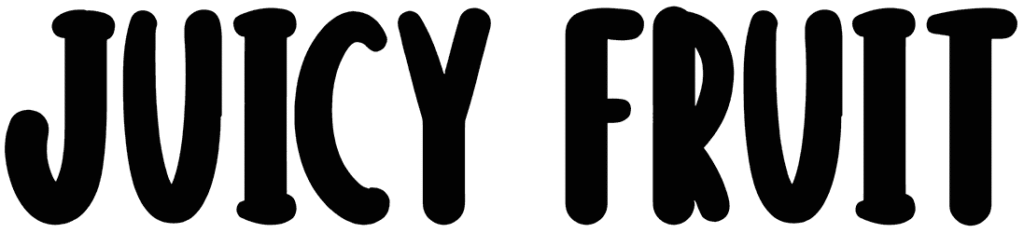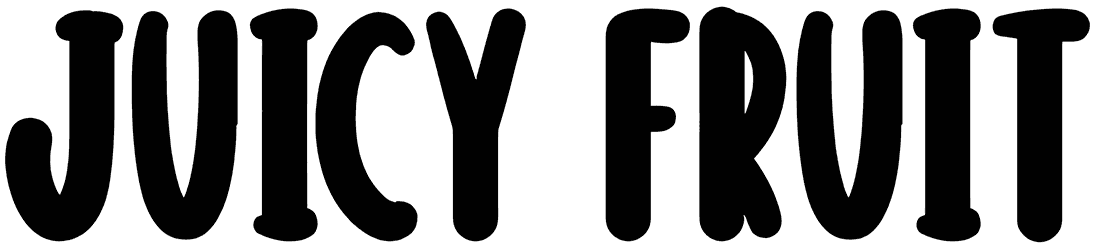
Juicy Fruit Font
With a soft and bold cartoon font, such as the present offer, your design is going to look modern and playful. Juicy Fruit font doesn’t cover lowercase letters and numbers, yet it can be a nice item for many creative pro…
With a soft and bold cartoon font, such as the present offer, your design is going to look modern and playful. Juicy Fruit font doesn’t cover lowercase letters and numbers, yet it can be a nice item for many creative projects, like a kids’ party flyer. Test this fun display font and amaze a lot of followers.